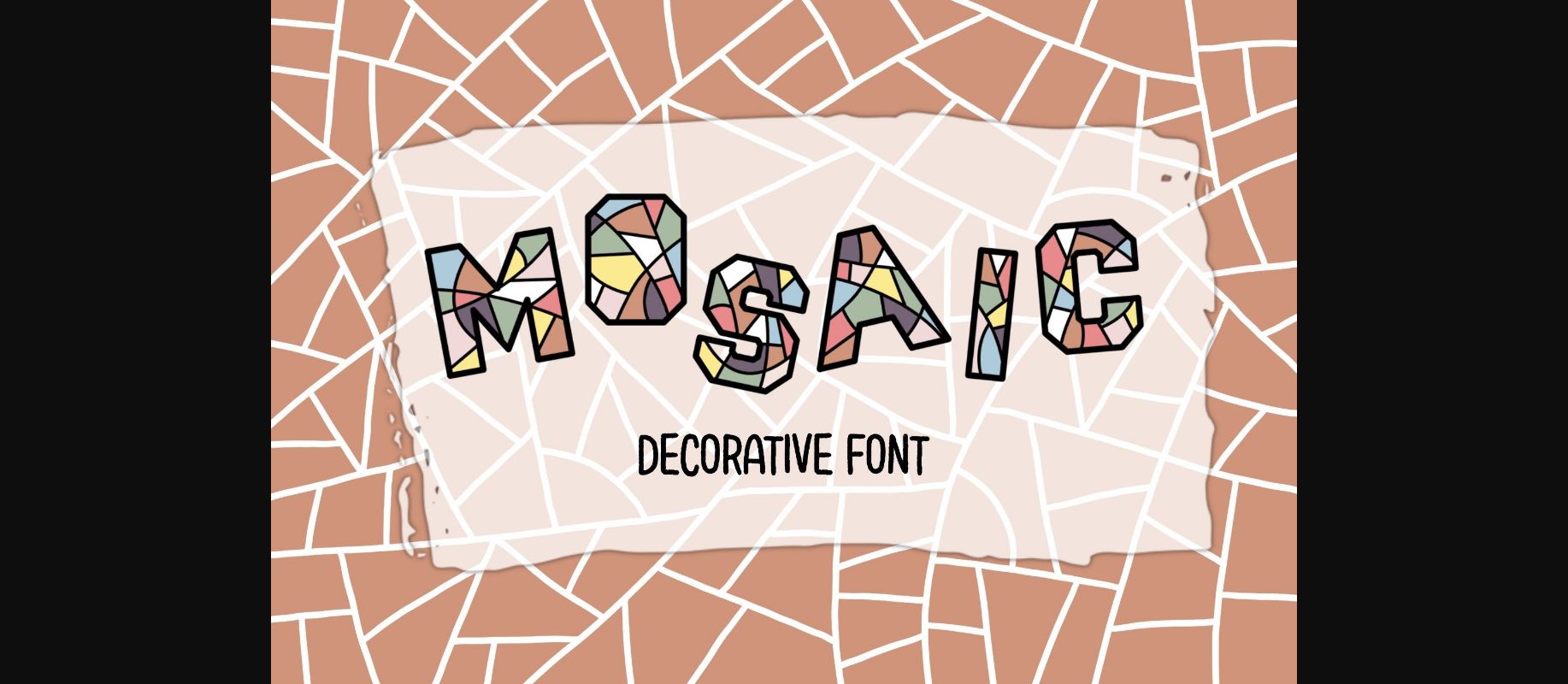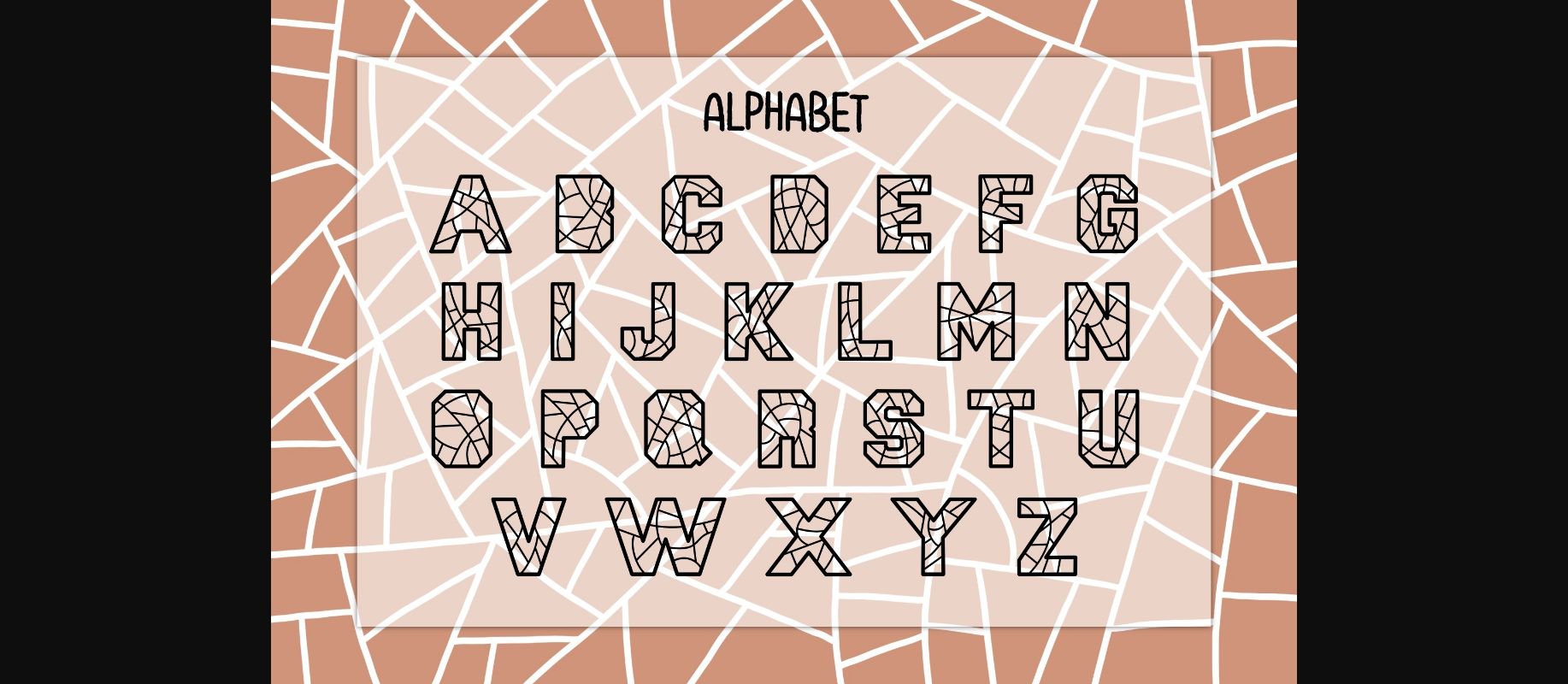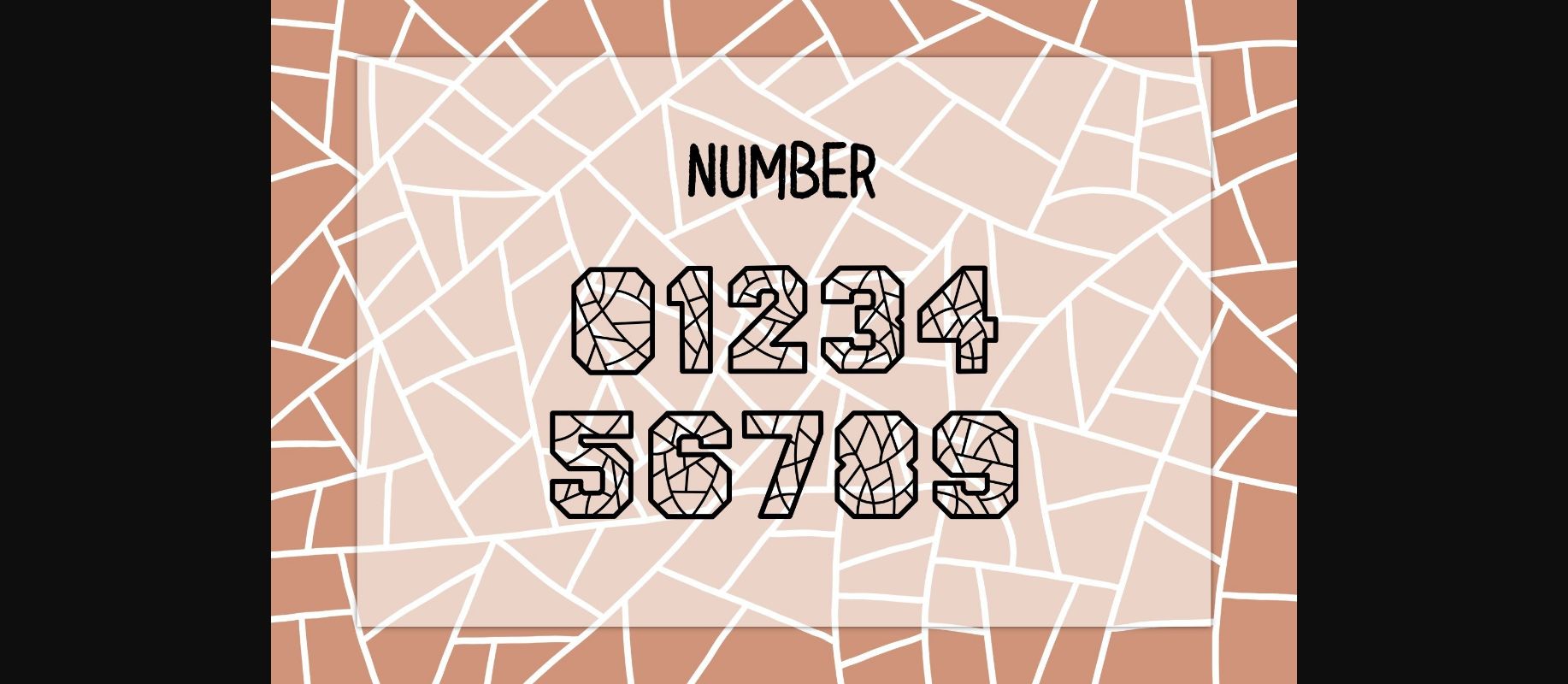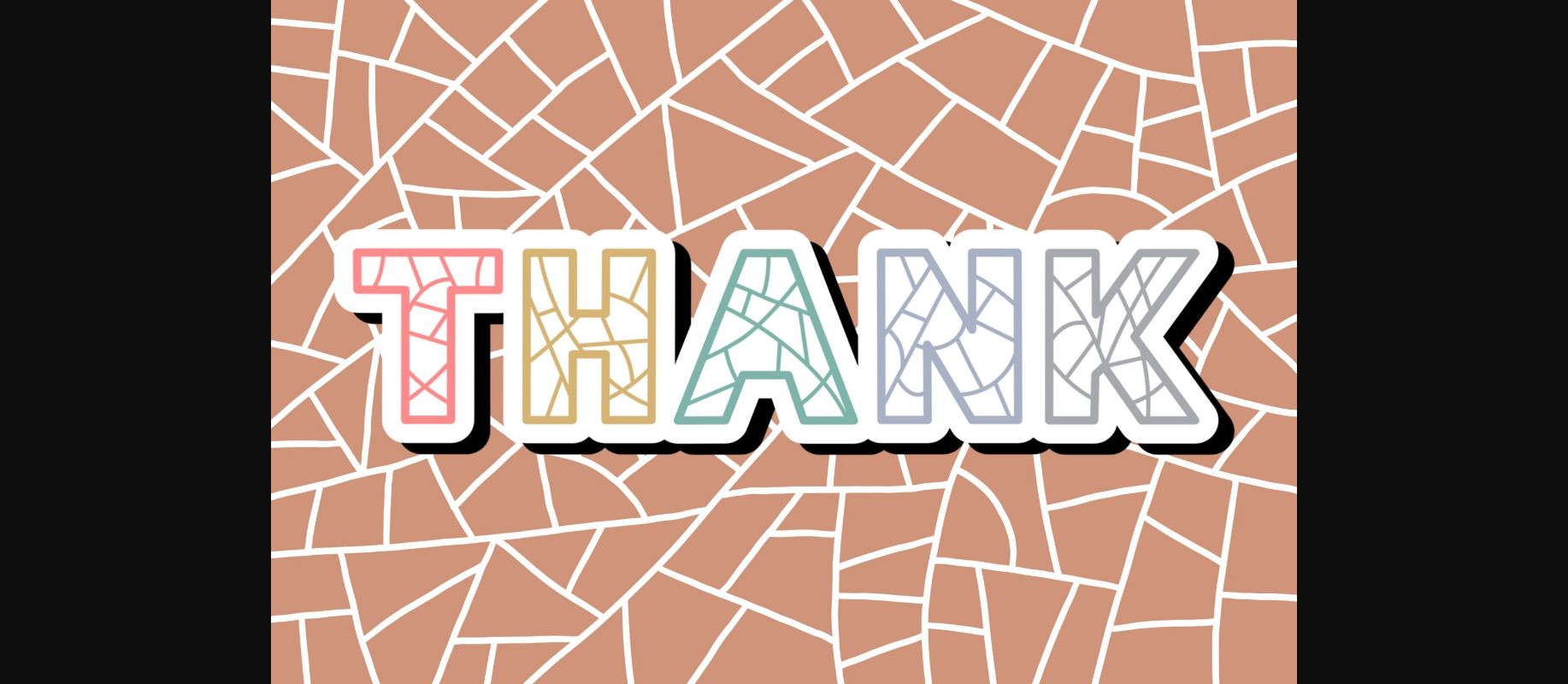
HomeDecorative FontsMosaic Font Decorative Fonts Mosaic Font FacebookXPinterestWhatsApp 1 of 6 ... Mosaic Font Poster 2... Mosaic Font Poster 3... Mosaic Font Poster 4... Mosaic Font Poster 5... Mosaic Font Poster 6... About Mosaic Font Mosaic is a Decorative font. This font is the perfect fit for all of your logos, branding, social media, crafty DIY projects, and much more! DOWNLOAD NOW People also explored Simple Planner Font Night Gaidy Font Banner and Arrows Font Greget Font Charlie Font Hello Summer Font With Lovely Font Cantika Sarah Font Amelia Script 360 0 TagsMosaicMosaic Font Previous articleJazzy Sunflower FontNext articleSomeflowers Font LEAVE A REPLY Cancel reply Comment: Please enter your comment! Name:* Please enter your name here Email:* You have entered an incorrect email address! Please enter your email address here Website: Save my name, email, and website in this browser for the next time I comment. Personal Use Free Whitelight Personal Use Free Read more about this font Rionaldo Angelo Personal Use Free Read more about this font Potato Pancakes Personal Use Free Read more about this font Trio Personal Use Free Read more about this font BLOG Transform Your Website: Elevate Your Typography with 7 Best Web Font Generators Are you ready to transform your website's typography from ordinary to extraordinary? Great! Today, we're diving into the world of web font generators, which... Top 10 Handwritten Fonts That Elevate Your Designs Where to Buy American Fonts Online in 2024 5 Fonts That Will Dominate Design Trends in 2026